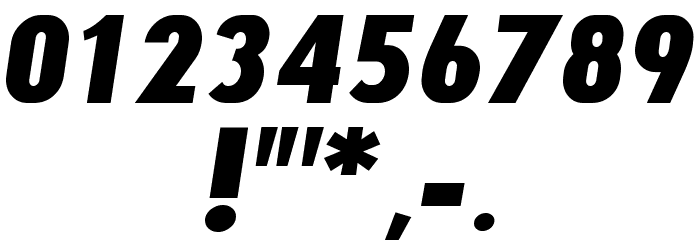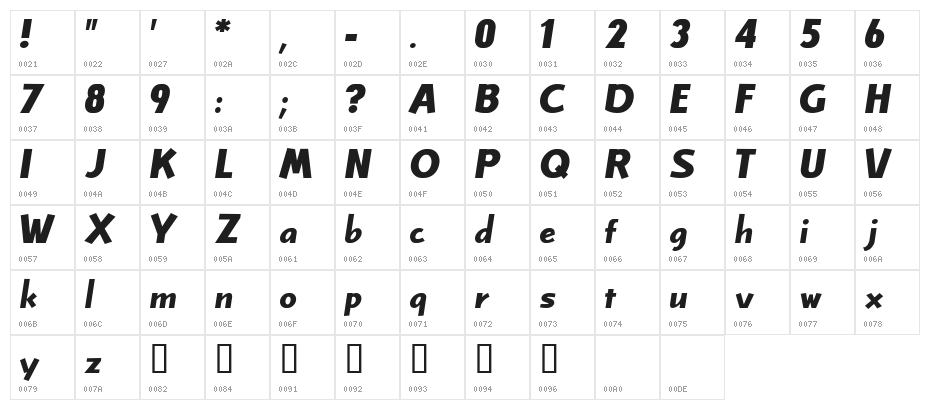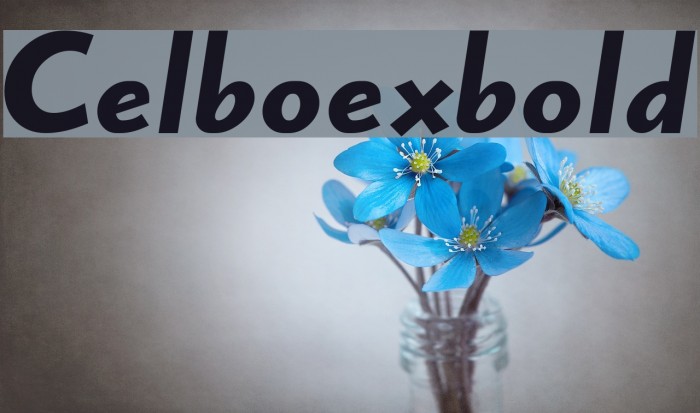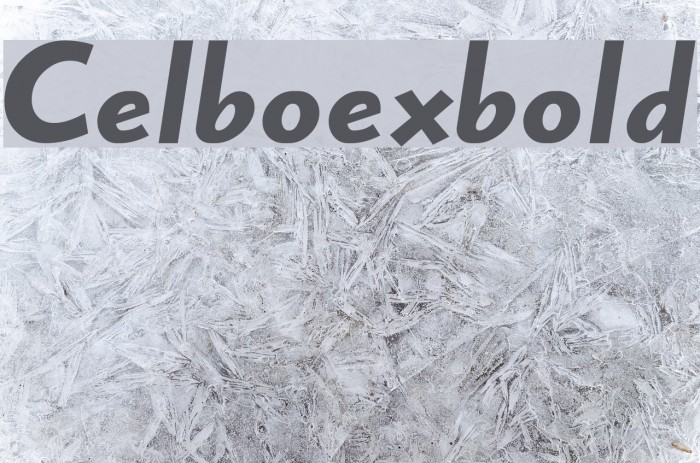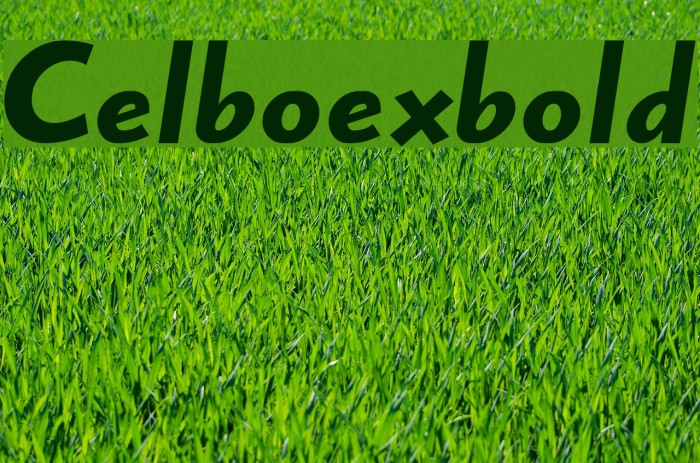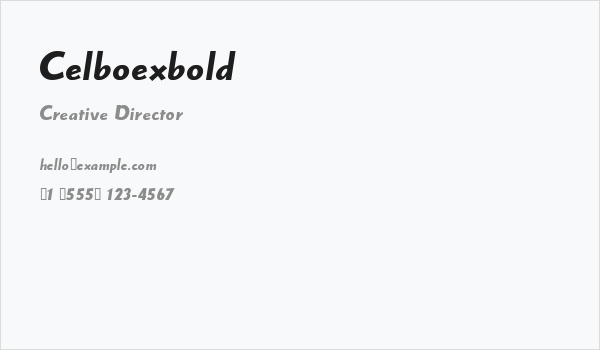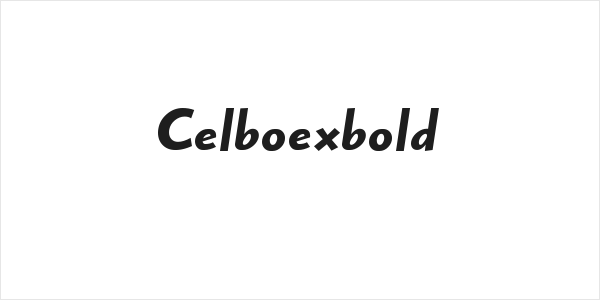
Celboexbold Font
Celboexbold Description
This font features bold, dynamic strokes with a slightly italicized slant, giving it a sense of movement and energy. The uppercase letters are strong and assertive, while the lowercase characters maintain a consistent style with a touch of playfulness. The numerals are clear and robust, ensuring readability. Special characters are designed with the same boldness, making them stand out. The overall design is modern and impactful, suitable for making statements.
| Proposed Projects | Ideal for branding, advertising, headlines, and any project requiring a strong visual impact. |